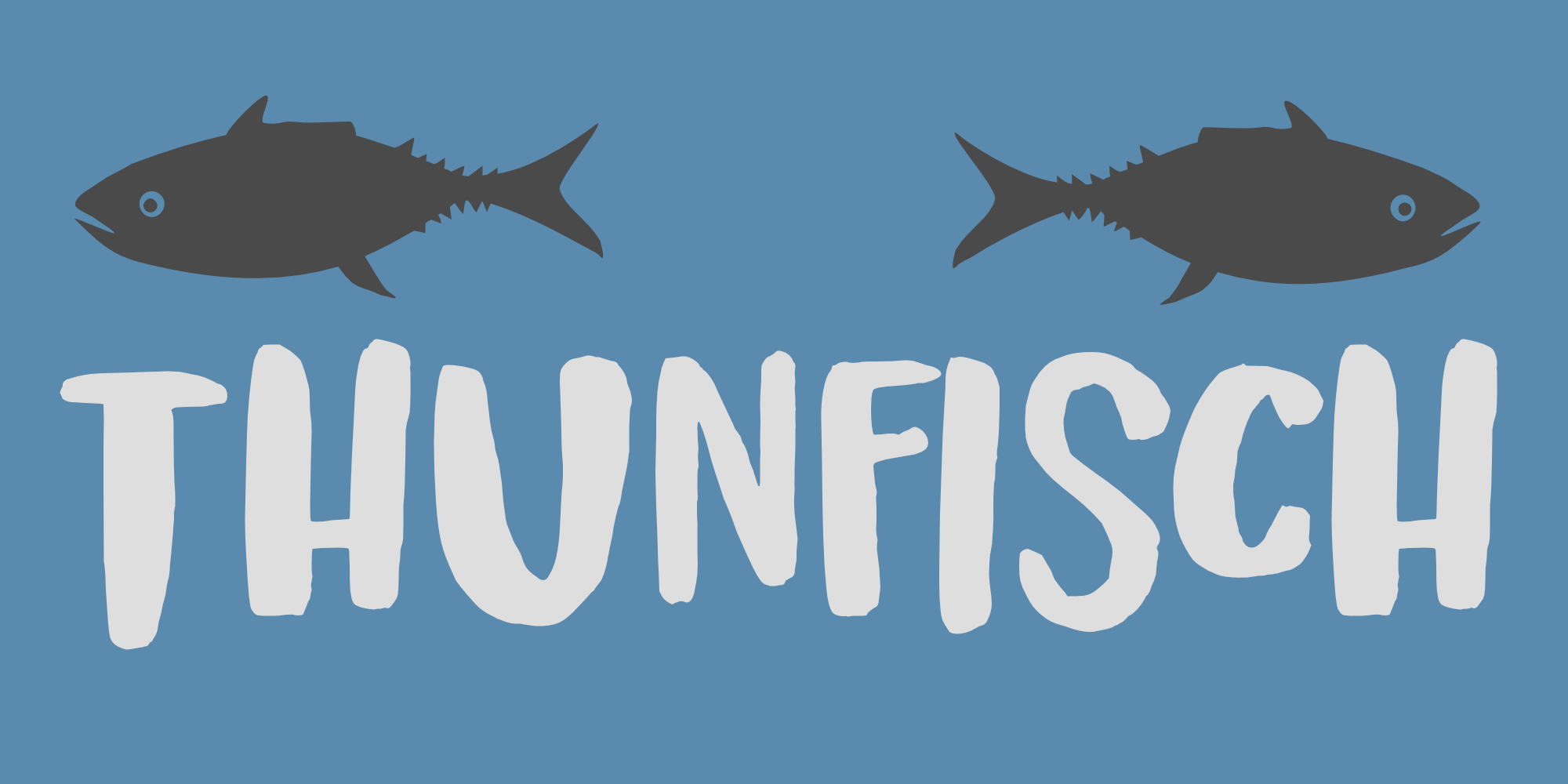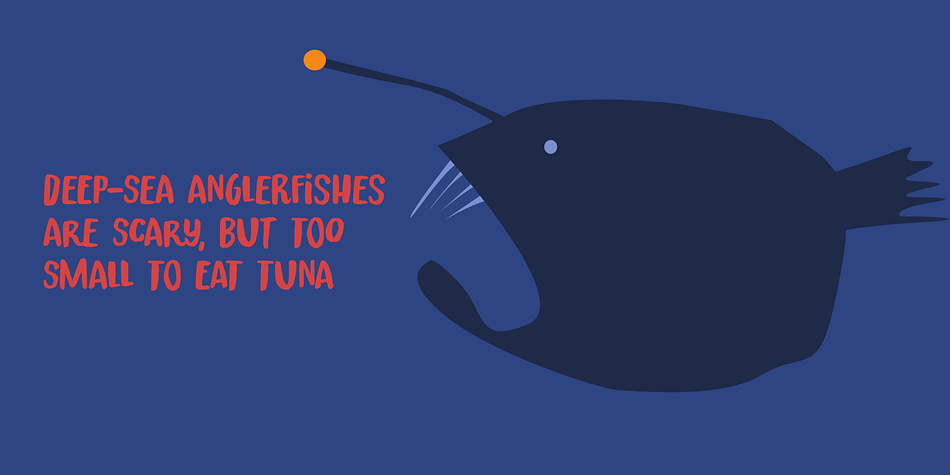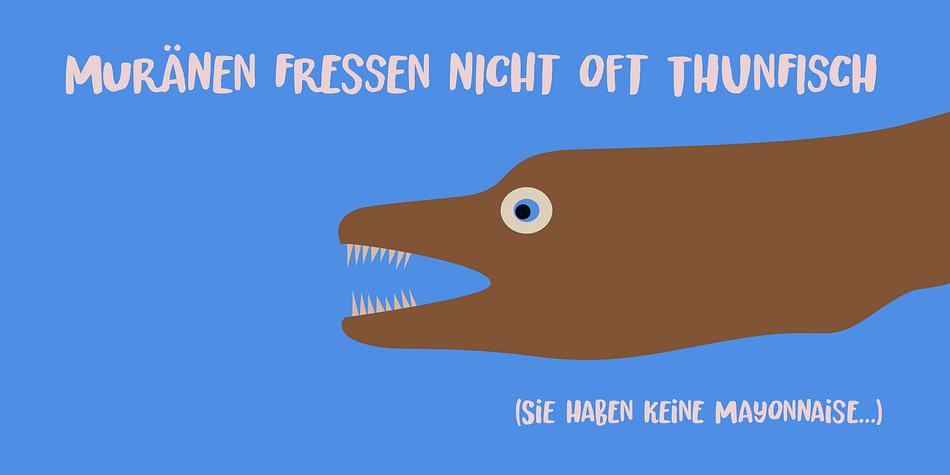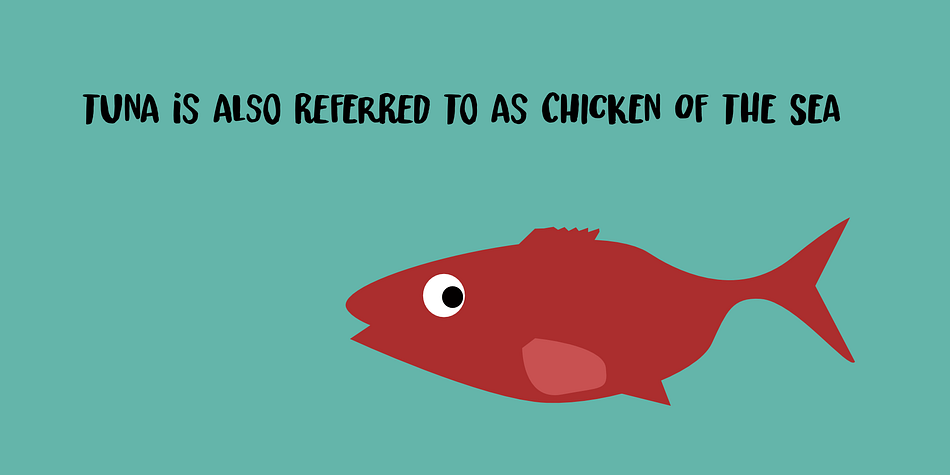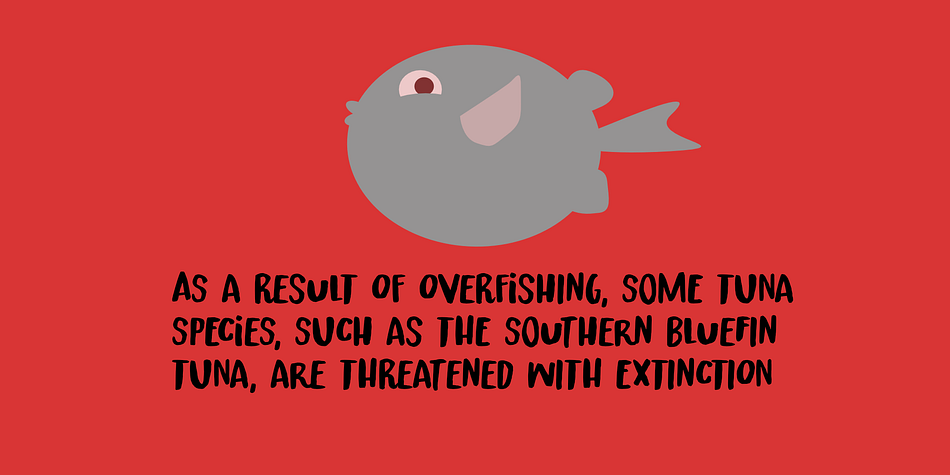
Thunfisch
Designed by David Kerkhoff, Thunfisch is a brush display font family. This typeface has two styles and was published by Hanoded.
Thunfisch, in German, means Tuna. At home, we don’t eat too much tuna, but I like serving a tuna & pasta salad. In Japan, where I often find myself, tuna is a staple protein source. It is so popular in Japan that species like the Pacific Bluefin tuna, of which 80% its consumed in Japan, are on the brink of extinction.
So, now you wonder why a Dutch typographer gives a German name to a font and talks about the dwindling population of Bluefin tuna, caused by the Japanese…
Well, ‘Thunfisch’ looks good. In Dutch, tuna is ‘Tonijn’ (a little boring) and in Japanese, Tuna is ‘Maguro’ - which is also slightly boring, so I settled for Thunfisch.
Thunfisch is a font I made with Chinese ink (tuna in Chinese is 鲔鱼) and a small brush. It comes with extensive language support and a lovely set of auto-rotating alternates!